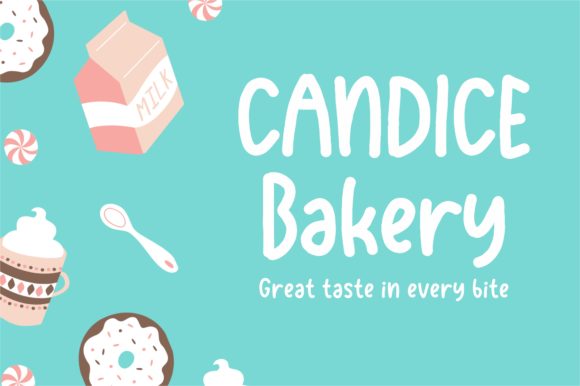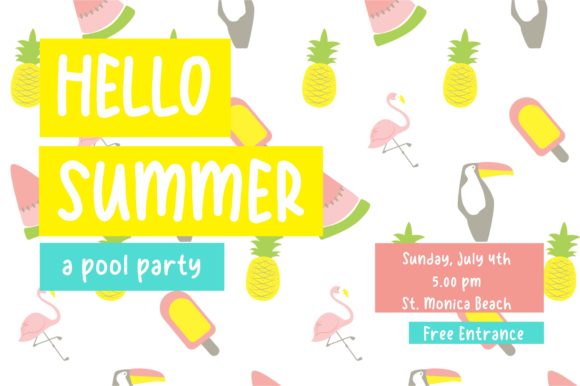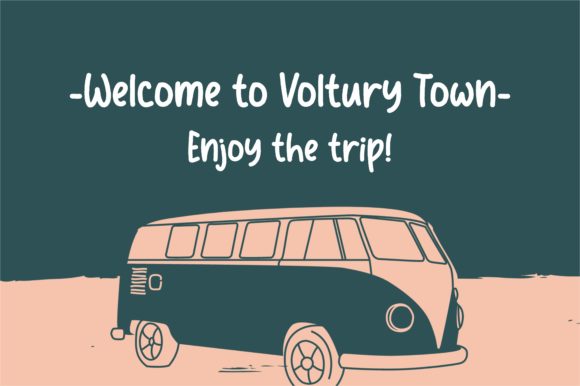
Introduction to Lazy Bear Font
Lazy Bear is a cute and natural handwritten font.
Why Choose Lazy Bear Font?
Lazy Bear Font offers exceptional quality and versatility, making it a valuable addition to your design toolkit. Whether you’re creating for personal projects or commercial use, Lazy Bear Font delivers professional results.